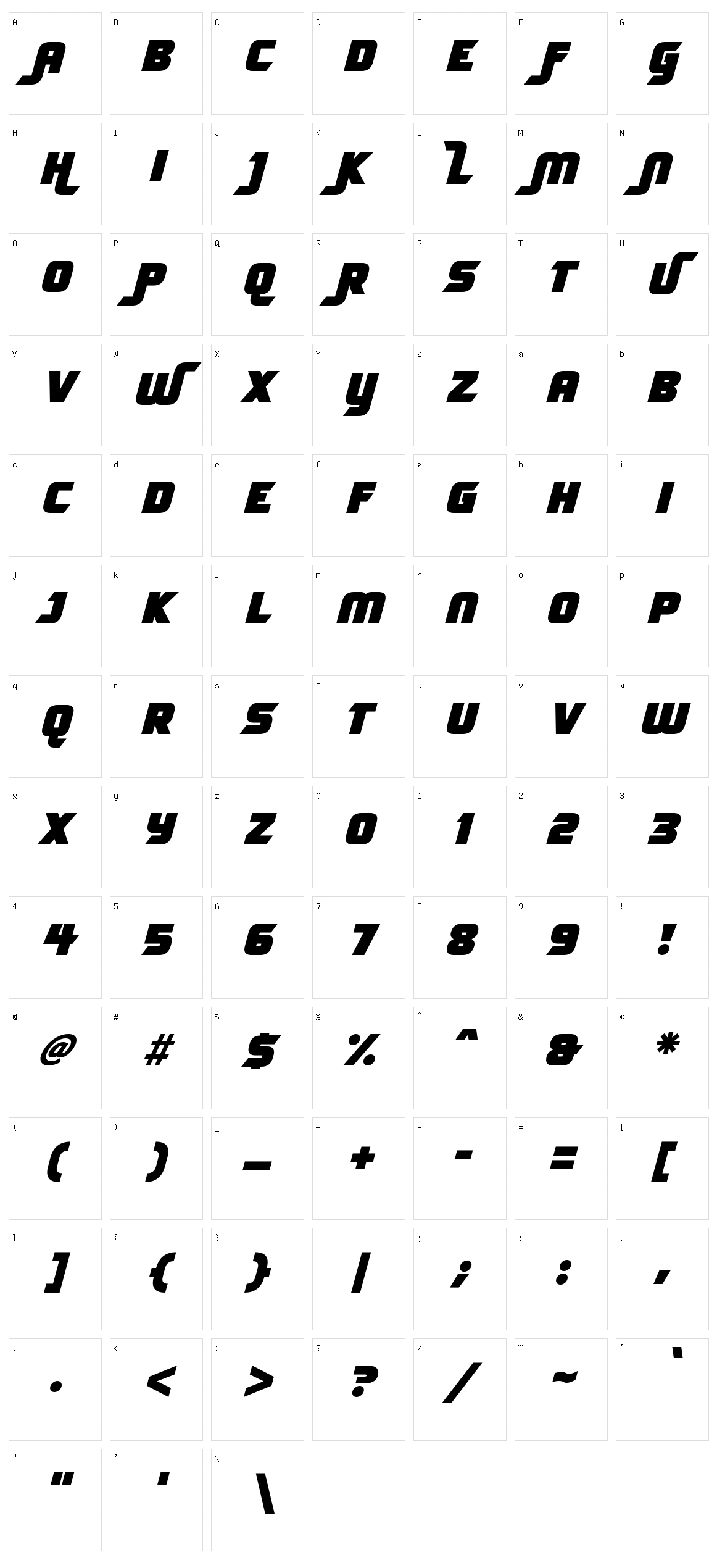
*Please display in previews like this: FLOURISH (all caps)
All "flourished" characters are UPPERCASE.
Lowercase contains alternates for all characters (non flourished.)